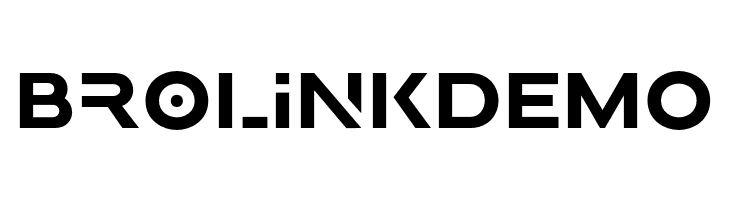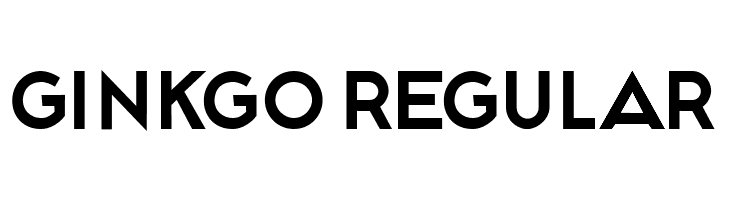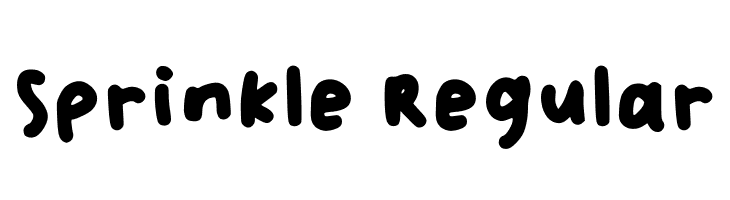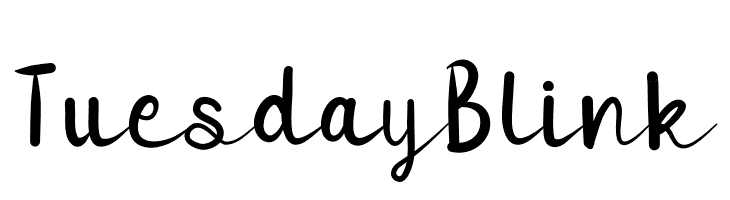
A bold, punk-inspired font with jagged, dynamic characters.
A playful, whimsical handwritten font with flowing, interconnected letterforms.
A bold, italic font with sharp, angular edges and a modern, sporty style.
A bold, geometric font with strong, angular lines and a blocky appearance.
A playful, dynamic font blending script and sans-serif styles with a handwritten feel.
A bold, geometric font with a modern, futuristic style.
A bold, playful font with rounded, whimsical characters.
A playful, bold font with a hand-drawn, whimsical style.
A playful and flowing script font with smooth, cursive strokes.
A bold, modern font with geometric lines and strong visual impact.